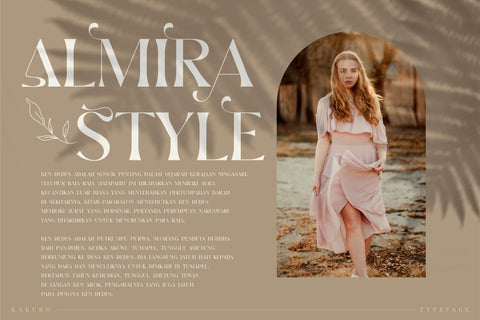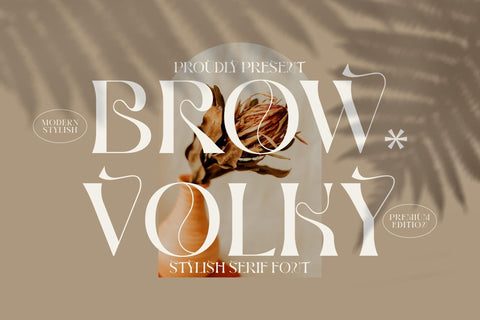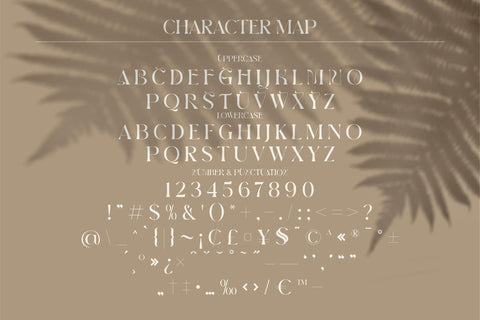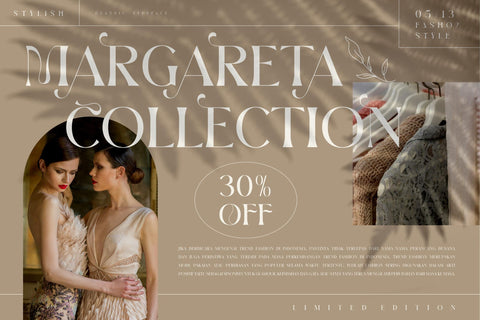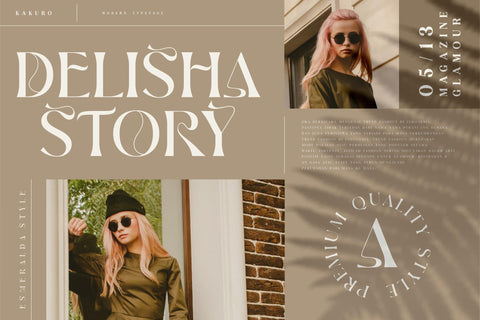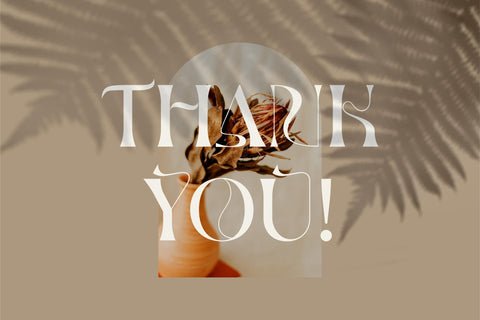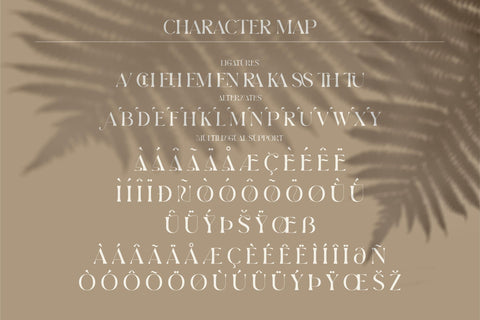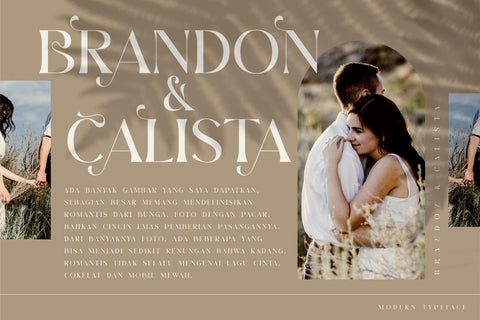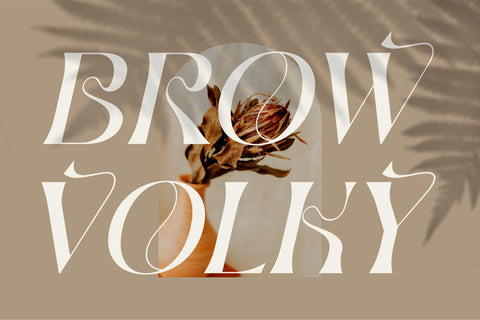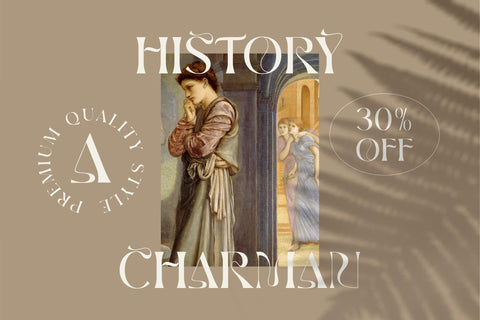
BROW VOLKY Typeface
Proudly present BROW VOLKY Typeface, created by Storytype,
This typeface is perfect for an elegant & luxury logo, book or movie title design, fashion brand,
magazine, clothes, lettering, quotes, and so much more.